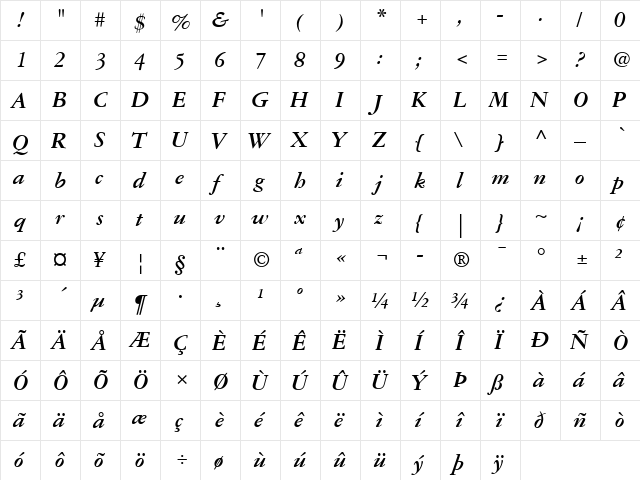
Garamond 3 LT Bold Italic Font Preview
Garamond 3 LT Bold Italic
Design Context for Garamond 3 LT Typeface
Garamond 3 LT is a composed and adaptable typeface that performs quietly and consistently across a wide range of design contexts. Its italic angle brings a sense of urgency and motion to the letterforms. Its bold stroke weight gives it real presence on the page.
Pro Tip: Try Garamond 3 LT for annotation and caption copy alongside an upright companion — the contrast in angle creates a dynamic but ordered typographic system.